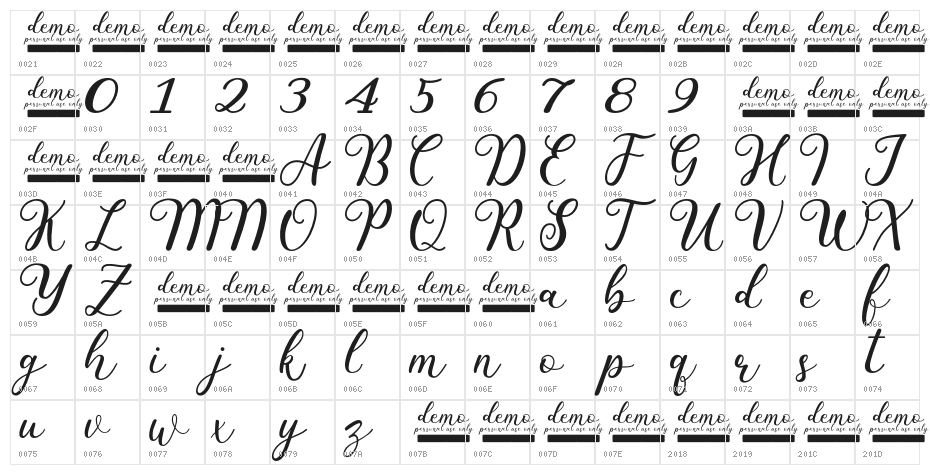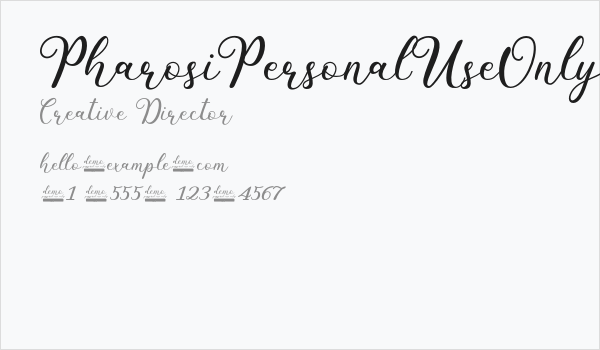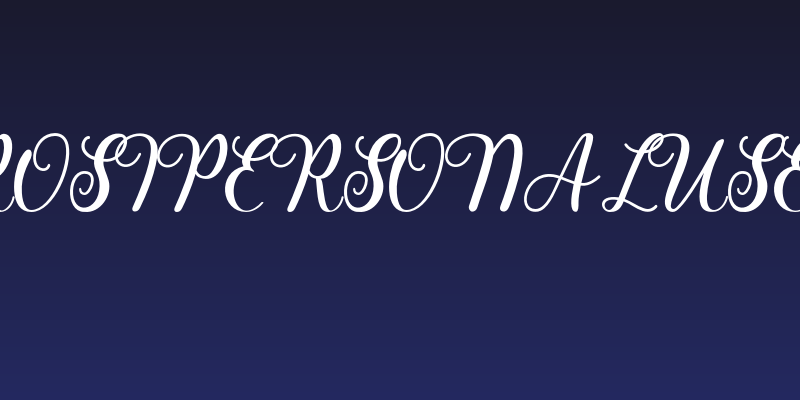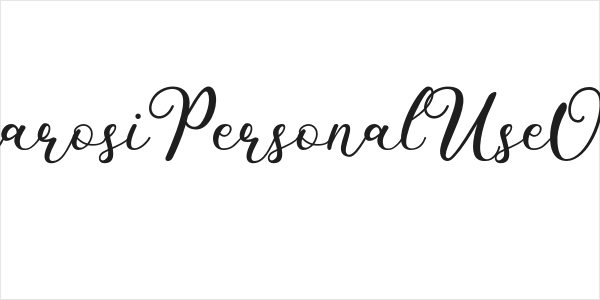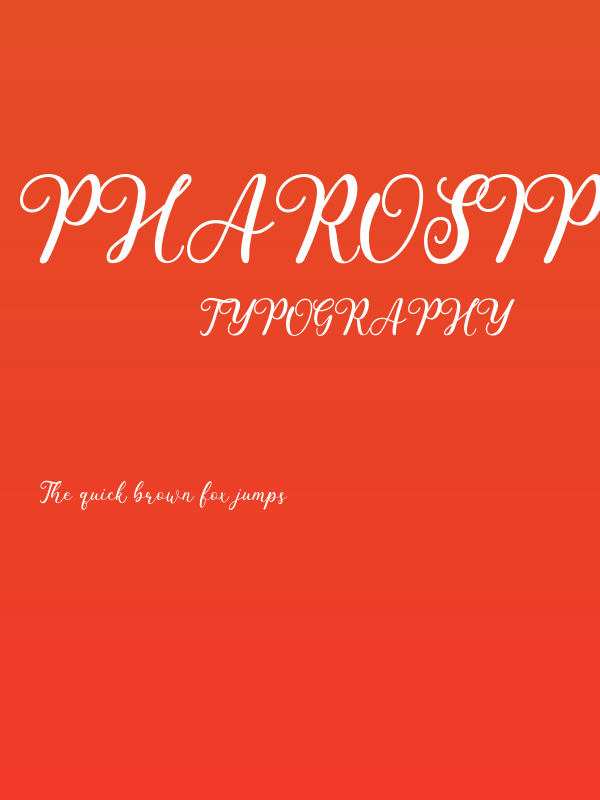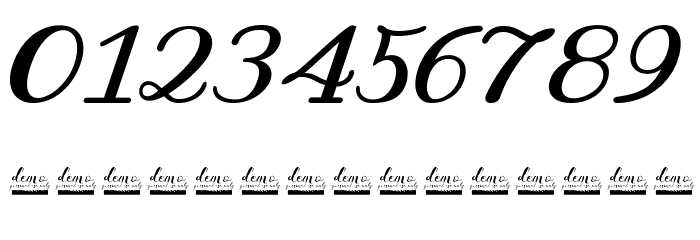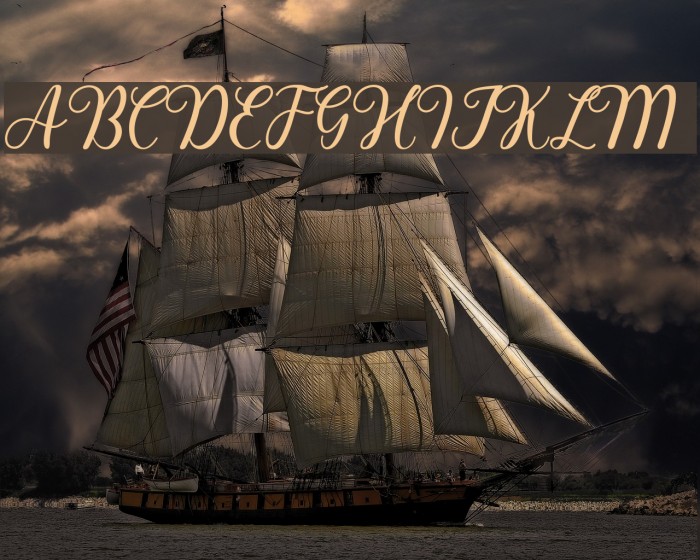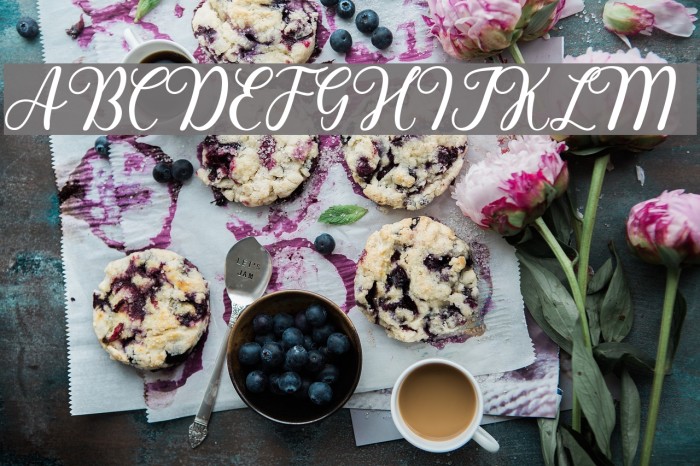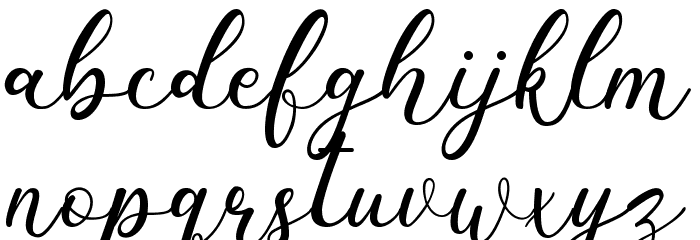
PharosiPersonalUseOnly Font
PharosiPersonalUseOnly Description
This font features an elegant and flowing script style, characterized by its smooth, cursive letterforms that exude a sense of sophistication and grace. The uppercase letters are particularly ornate, with sweeping curves and flourishes that add a touch of drama. The lowercase letters maintain a consistent flow, enhancing readability while preserving the decorative nature of the font. The numerals are styled to match the overall aesthetic, offering a cohesive look across all characters. This font is ideal for projects that require a touch of elegance and personal flair.
| Use Case | Logos, Invitations, Decorative Text |
| Proposed Projects | Ideal for wedding invitations, elegant branding, personal stationery, and decorative signage. |